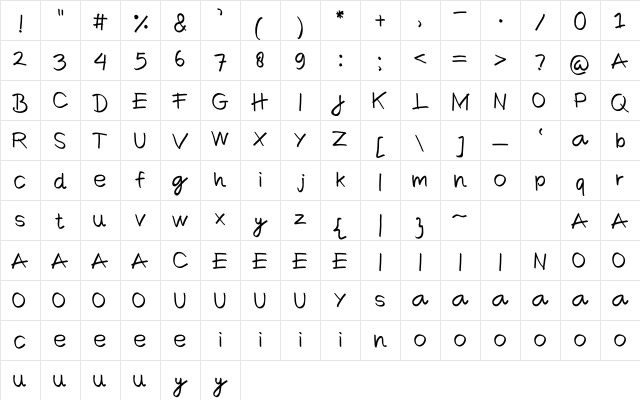
Comica Regular Regular
Design Context for Comica Regular Typeface
Comica Regular trades formality for fun, with bouncy, characterful letterforms that bring warmth and energy to any project.
Font Pairing: Pairs well with a rounded or humanist sans for body copy, maintaining the friendly tone without relying on Comica Regular to carry extended reading.
Pro Tip: Use Comica Regular at larger display sizes where its expressive character can land. Pair with a clean, simple sans for body copy to maintain readability.